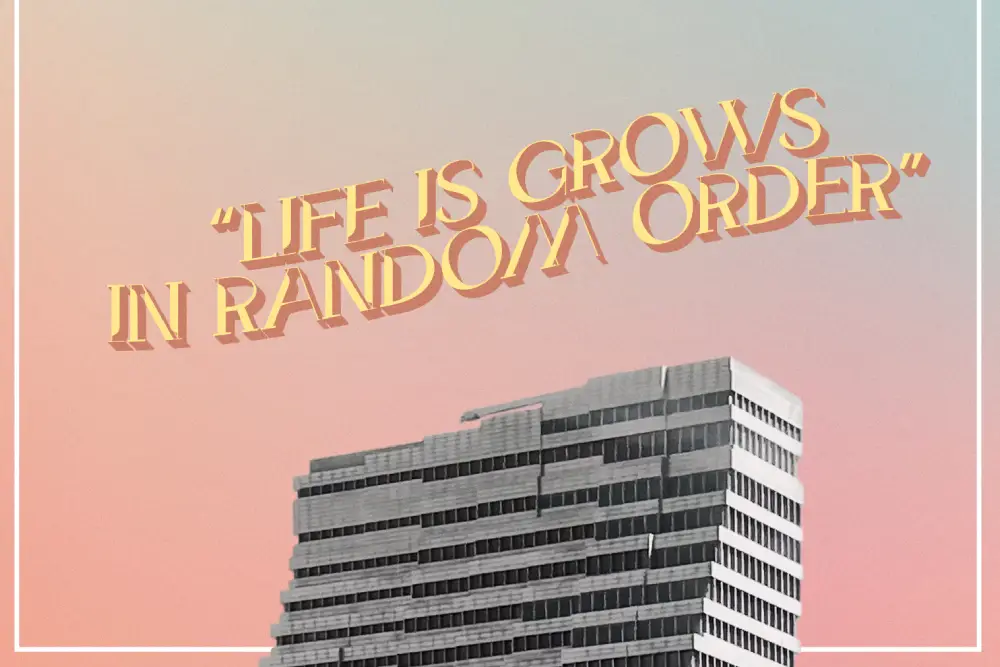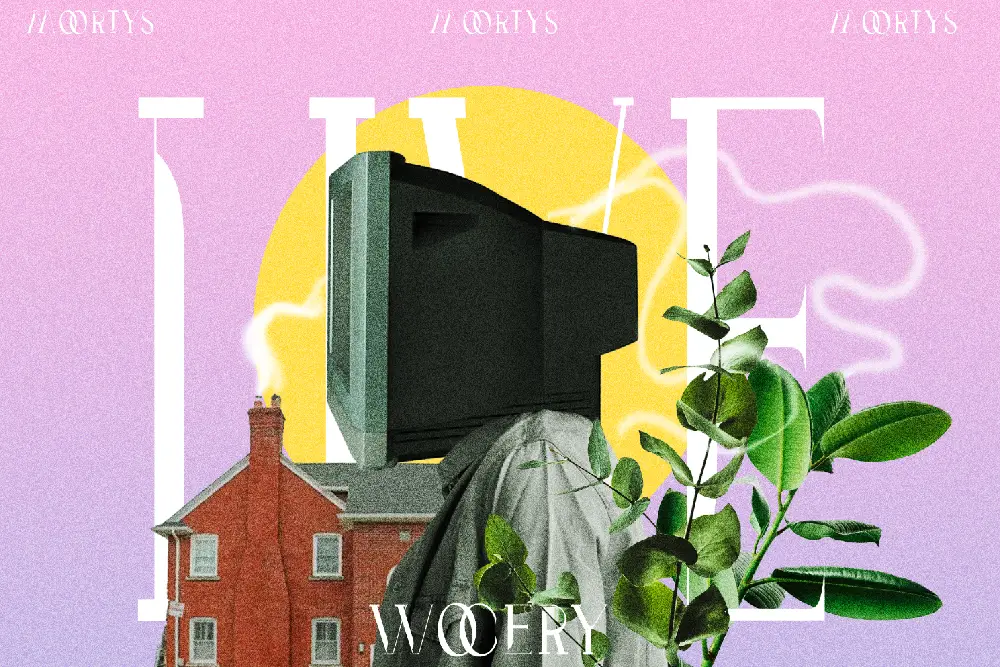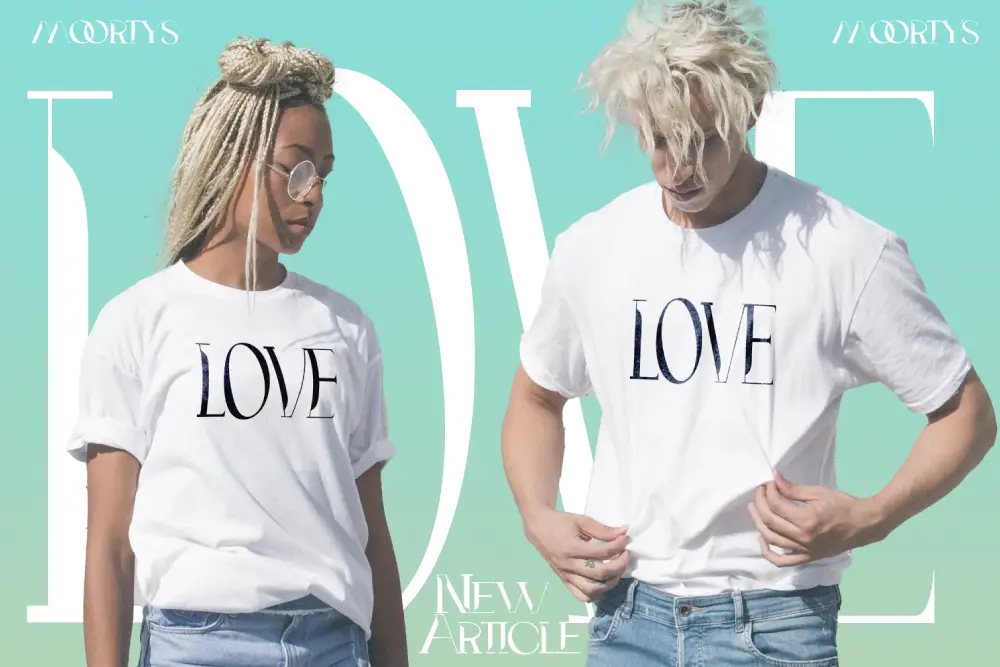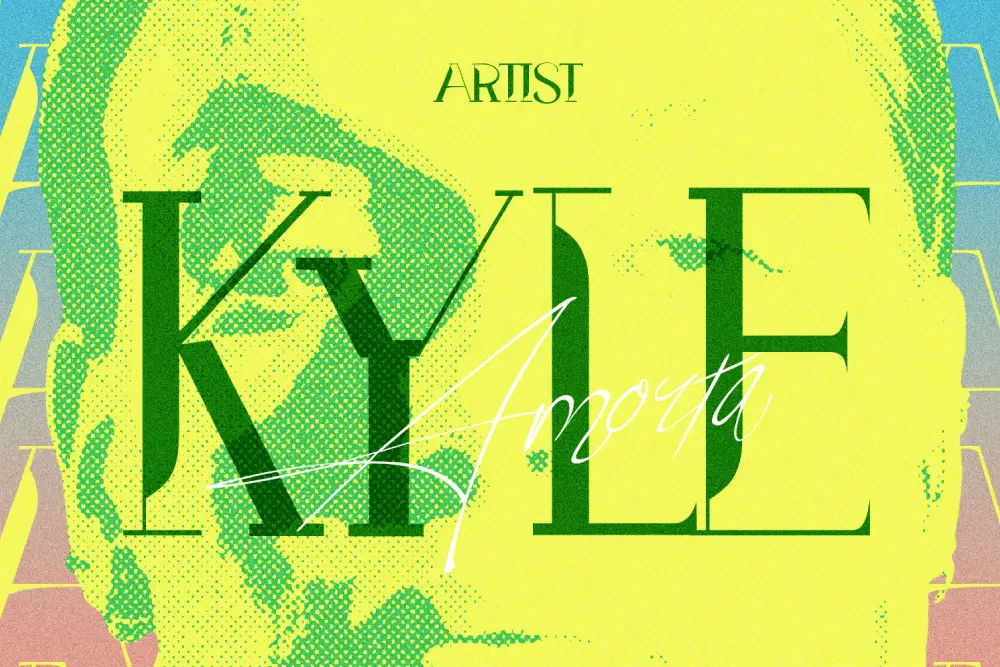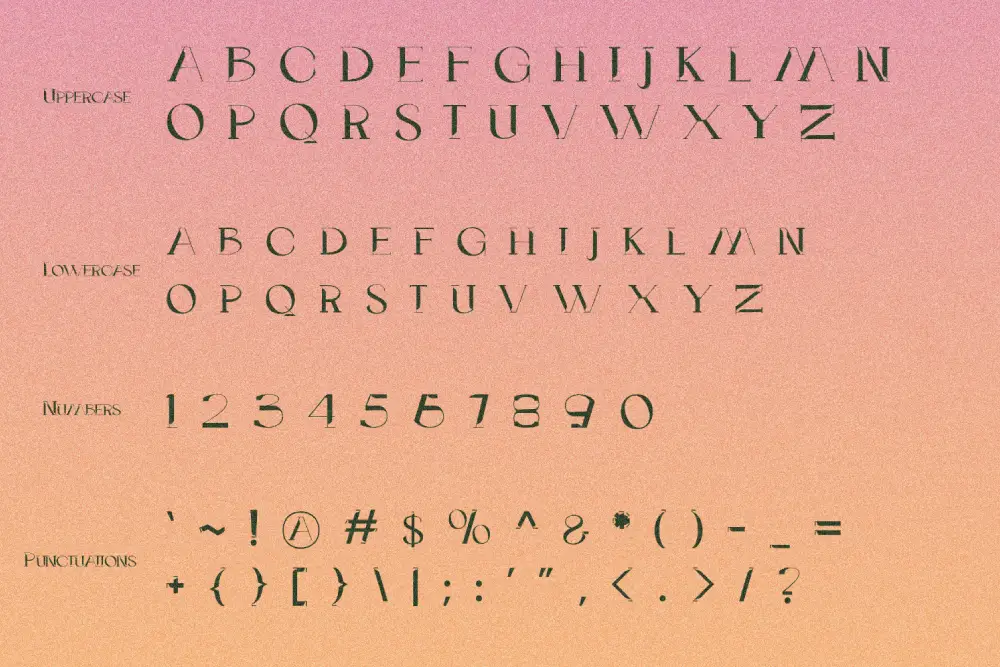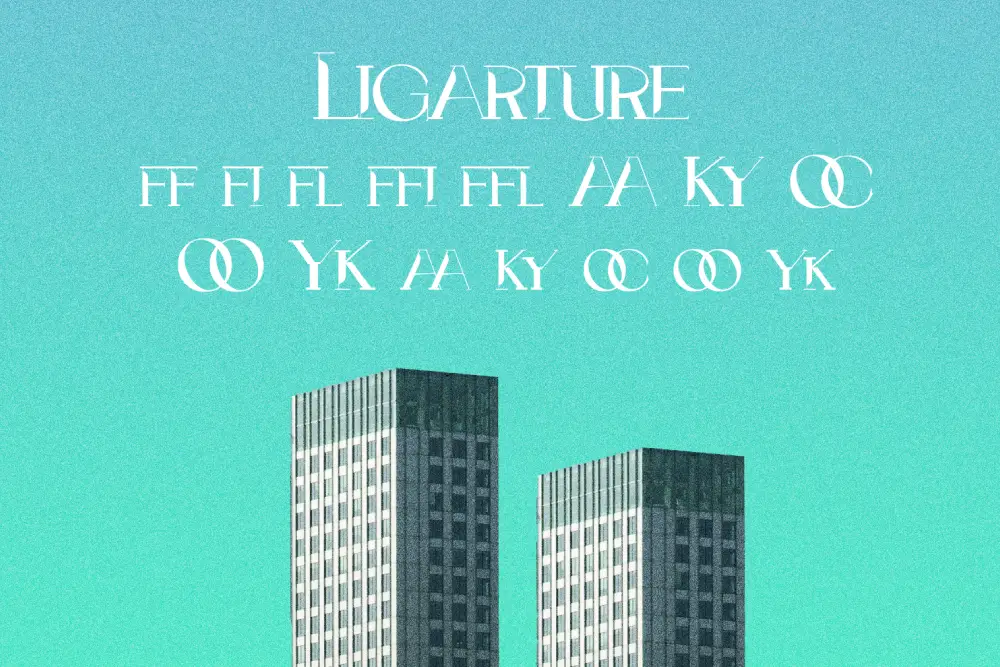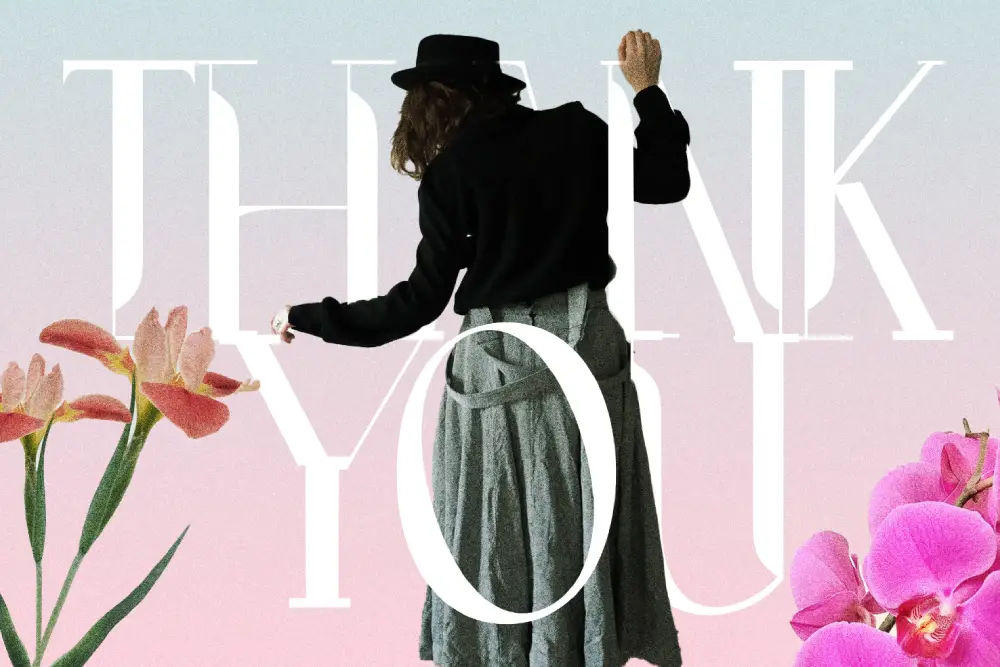
Moortys – Unique Display Font for Modern Creative Branding
Typography defines personality. A powerful font can transform an ordinary design into something unforgettable. Moortys – Unique Display Font is crafted to make every visual stand out with its distinctive structure, dynamic weight, and creative flexibility. Designed for modern branding, advertising, and poster projects, Moortys helps designers express boldness and originality.
With multiple weights and styles included, this unique display font provides unmatched versatility—giving you the freedom to craft logos, headlines, and digital layouts that look cohesive and professional.
Unique Display Font for Bold Statements
Moortys – Unique Display Font combines geometric balance and artistic flow to create a typeface that feels both futuristic and handcrafted. Its dynamic weight variations give you full control over tone—making it ideal for modern logos, editorial headlines, and creative packaging.
This unique display font isn’t afraid to make an impression. Every version, from Regular to Italic and Expanded, amplifies clarity and character—whether used for branding agencies, tech startups, or creative studios.
Key Features of Moortys – Unique Display Font
- Numbers & Punctuations – ready for editorial and digital use
- Ligatures – add natural flow and smooth visual rhythm
- Dynamic Weight System – bold, tall, and expanded versions for full creative control
- Support Multilingual – extended Latin for international projects
Every element in Moortys was designed to help your design speak clearly—with precision, personality, and power.
Why Designers Love Moortys
Designers love Moortys because it combines versatility with visual strength. Unlike ordinary fonts, this unique display font adapts effortlessly to various creative directions—from minimalist to high-impact compositions.
Here’s what makes it a favorite among professionals:
- Bold Aesthetic: Distinct shapes that instantly attract attention
- Multi-Style Family: Six complete font files with italics and expansions included
- Perfect Pairings: Works beautifully with geometric and brush companions
- Creative Freedom: Ideal for logo design, posters, and editorial work
- Professional Quality: Designed for consistent results across print and digital media
With Moortys, every headline becomes a visual statement.
Moortys for Modern Logos and Branding
When creating a brand identity, typography is everything. Moortys stands out as a unique display font built for strong logos and memorable branding. Its bold and confident strokes help brands convey innovation, creativity, and modern thinking.
Startups and design agencies especially love Moortys for its ability to stay professional yet artistic. The expanded version adds dominance to brand wordmarks, while the italic variations introduce personality and motion.
Moortys for Posters and Editorial Design
Posters and magazines need a font that commands attention while staying readable. Moortys is perfect for this. As a unique display font, it offers multiple weights to adapt from striking titles to elegant captions.
Use Moortys Tall or Expanded Italic for visual hierarchy in editorial layouts. The result is a cohesive system that keeps your compositions modern, stylish, and easy to read.
In the digital age, a unique display font must be flexible. Moortys was built with this mindset. Whether used in website headers, app interfaces, or motion graphics, it maintains readability while standing out visually.
Its ligatures and dynamic weights give motion designers extra creative range—allowing smooth transitions between static and animated typography.
Bring your ideas to life with Moortys—your new essential tool for bold creative expression.